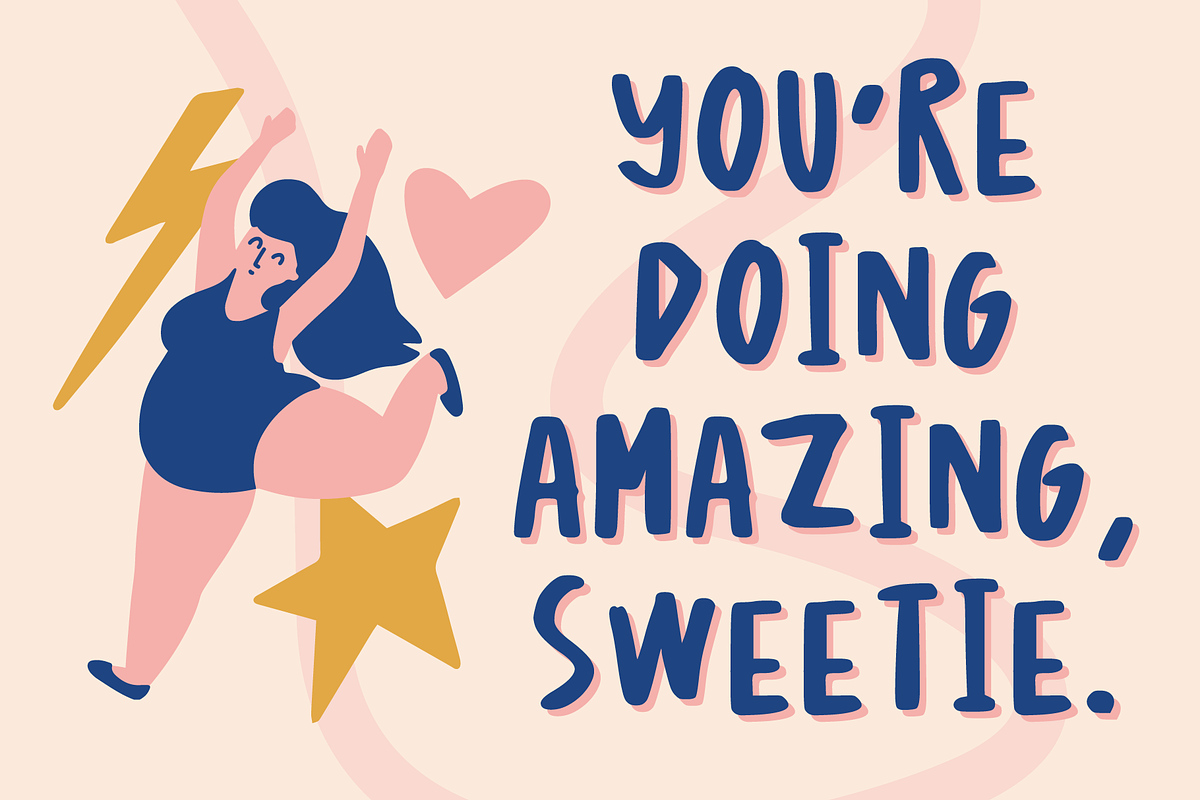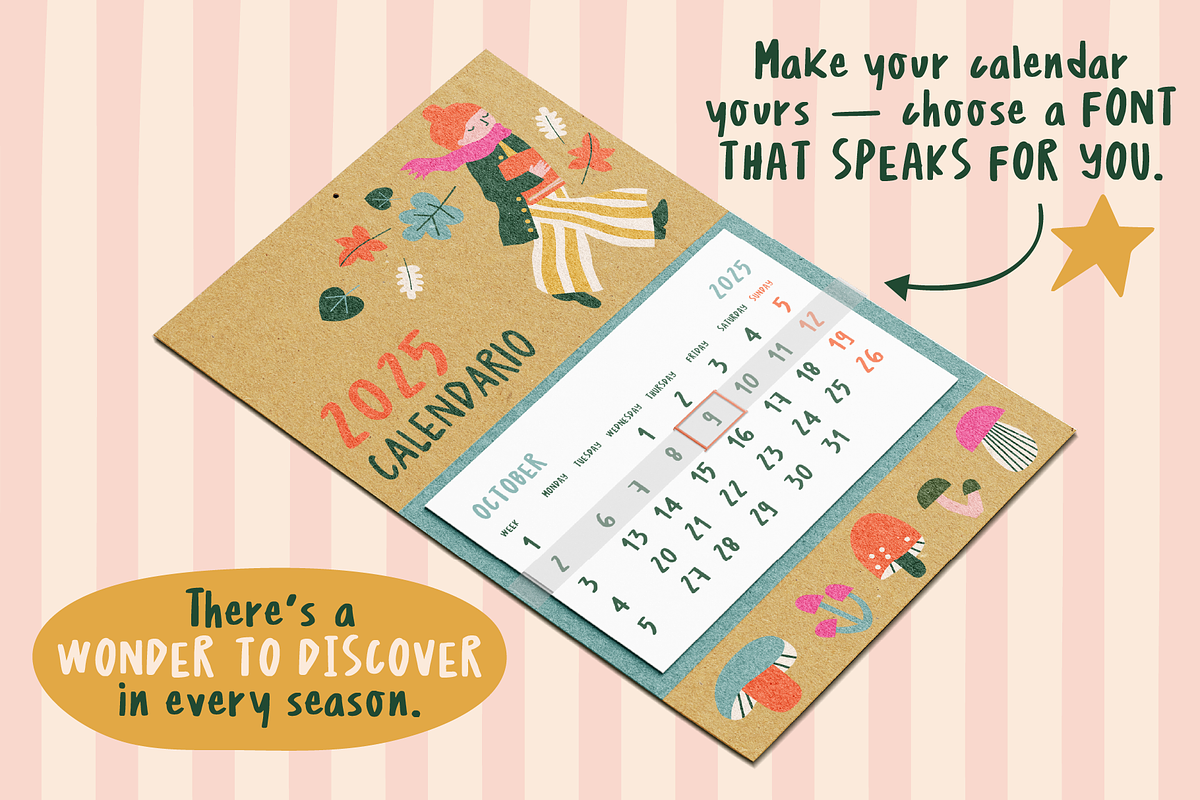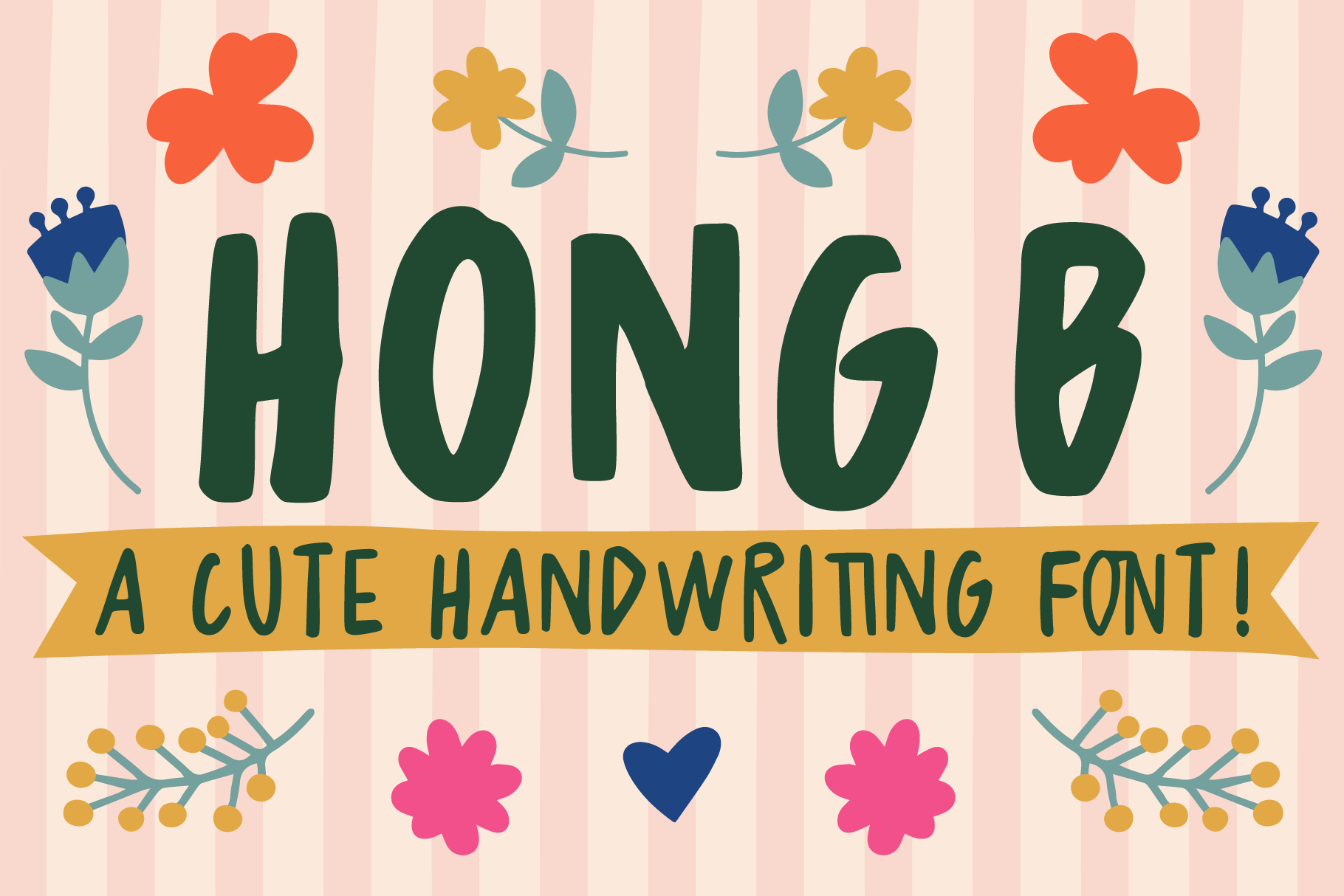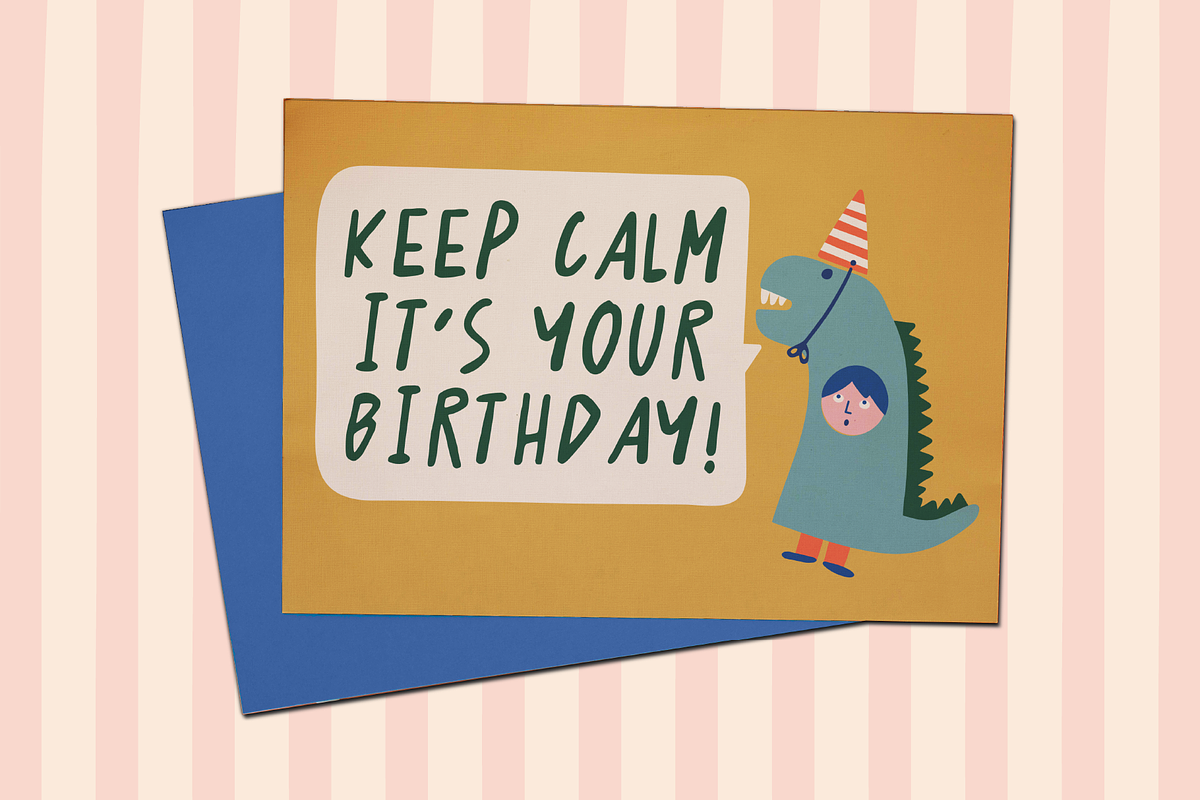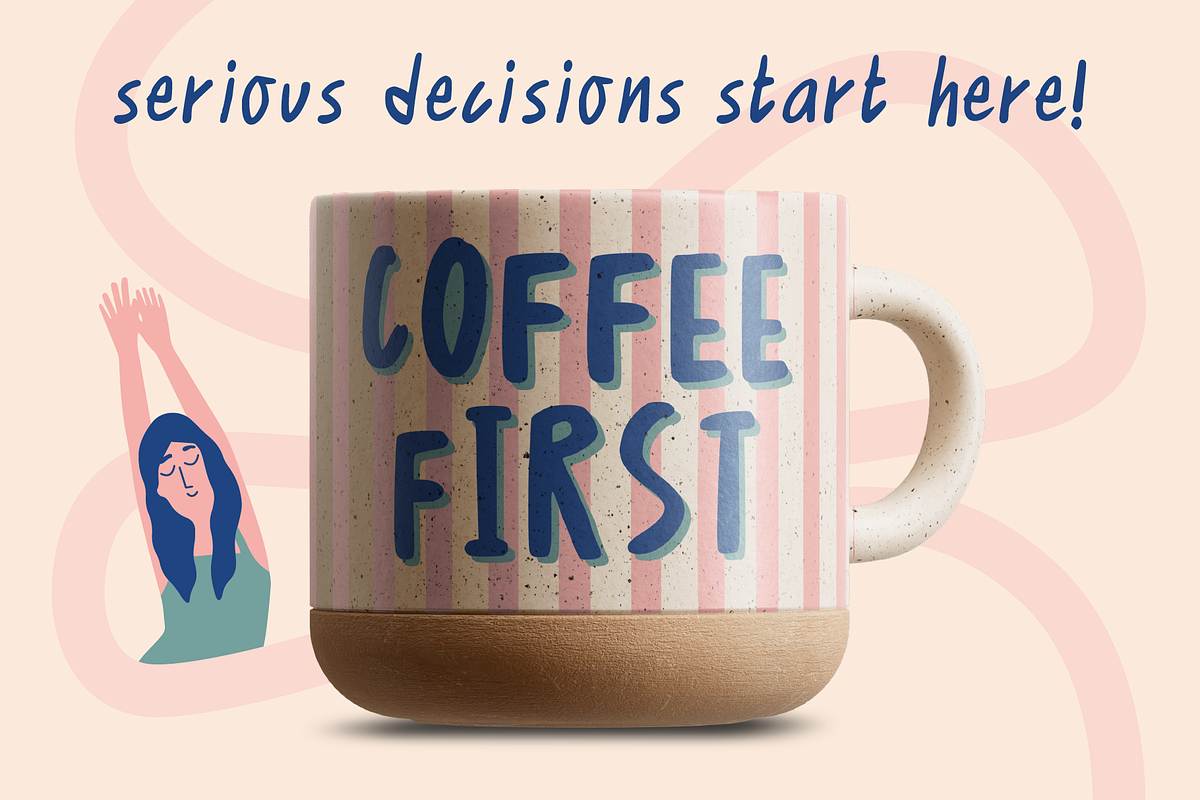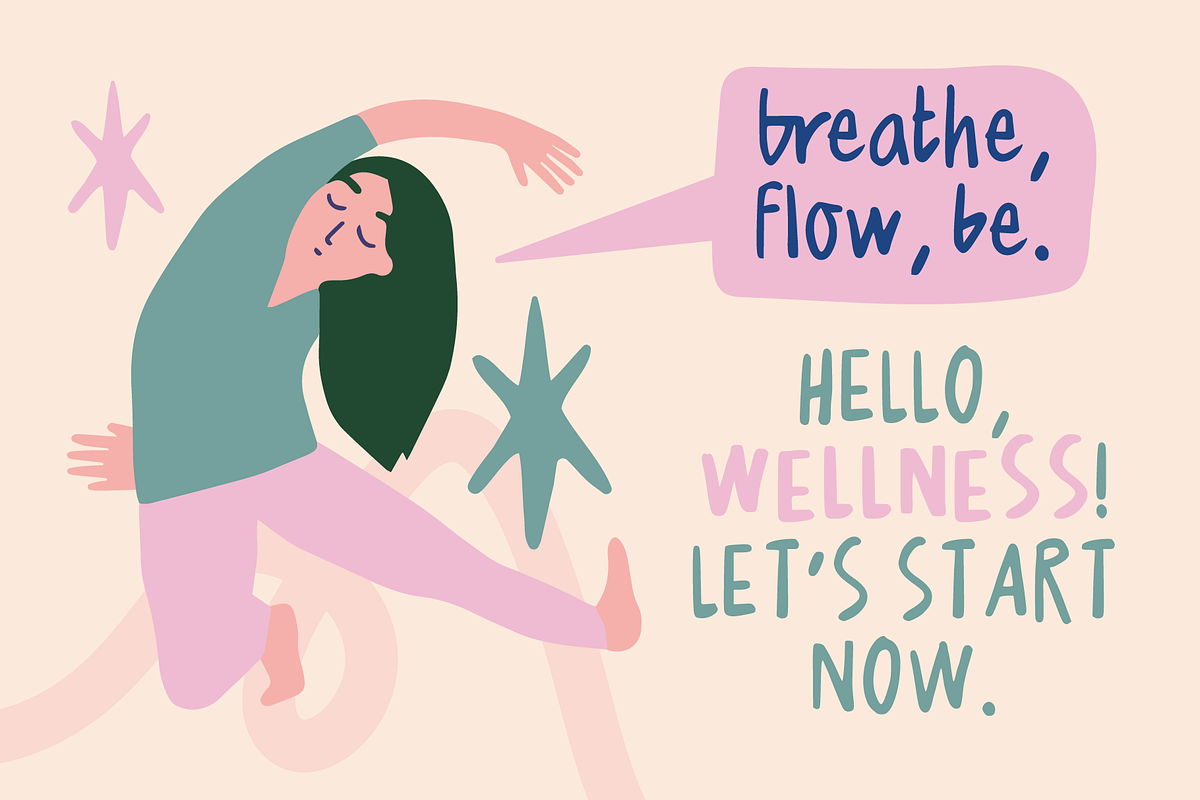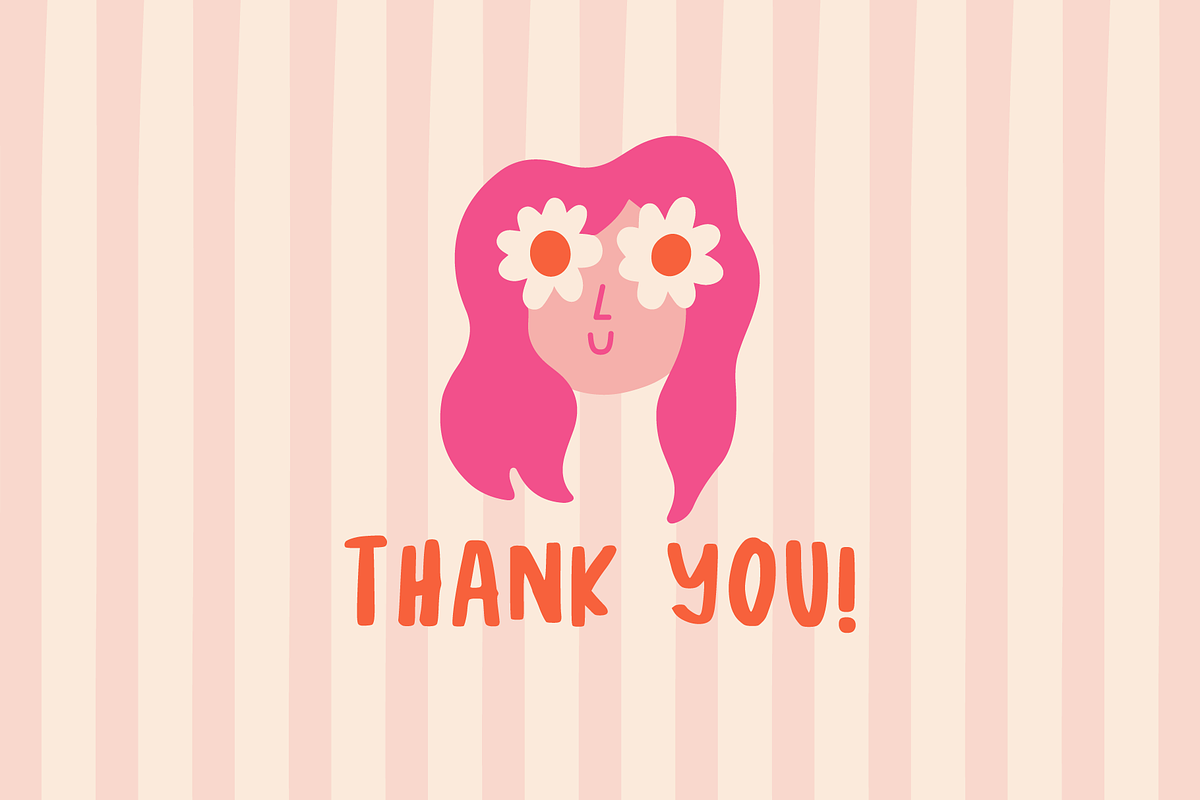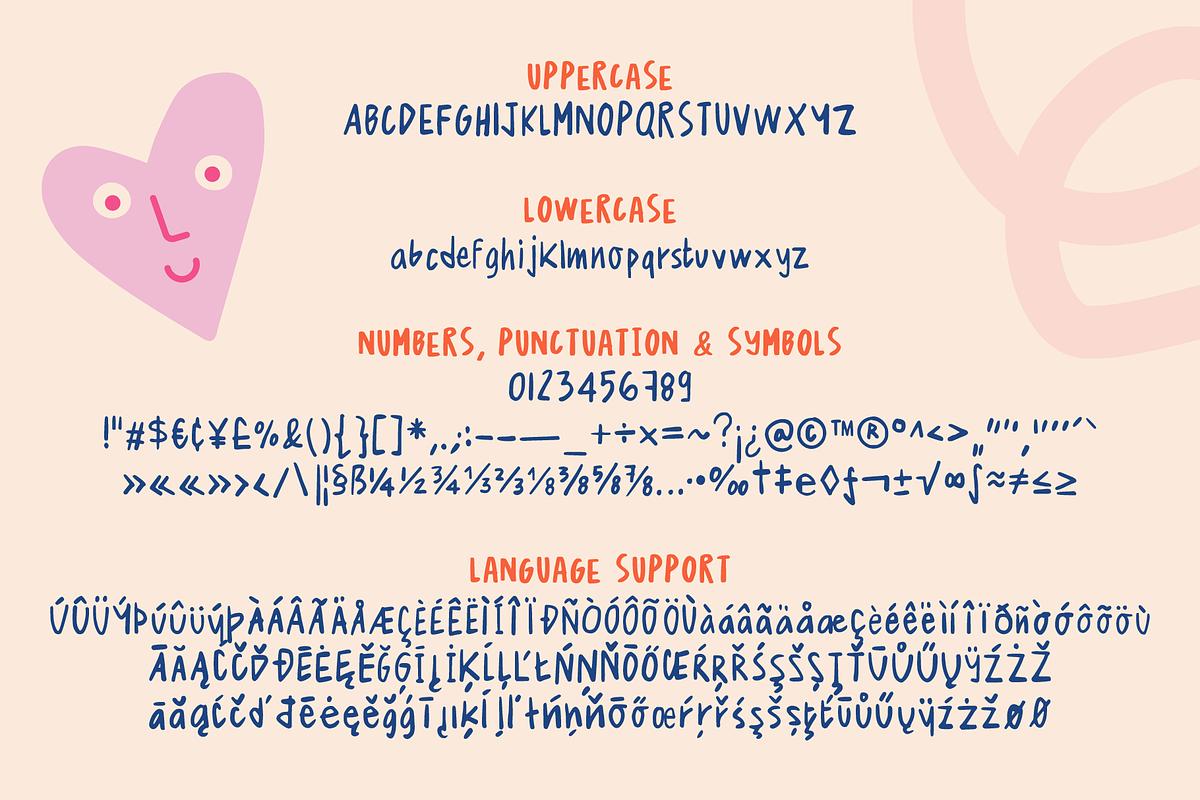
Hong B Handwritten Font
Discover Hong B, a handwritten font that brings warmth, charm, and authenticity to every design. Its smooth, flowing shapes follow a natural rhythm, with subtle imperfections that create a friendly and genuine feel — perfect for branding, packaging, social media, editorial projects, and more.
The letterforms of Hong B feel truly handwritten, balancing spontaneity and playfulness. It’s the perfect choice for designers seeking a fresh, lively, and full-of-personality look, adding a personal and human touch to every project.
Hong B comes in three styles — Regular, Bold, and Italic — giving you the flexibility to mix and match for a dynamic, handcrafted feel.
- Alternate characters for extra variety
- Numbers, punctuation & symbols
- Full multilingual support
Bring your ideas to life with Hong B — the handwritten font that speaks with energy and character.